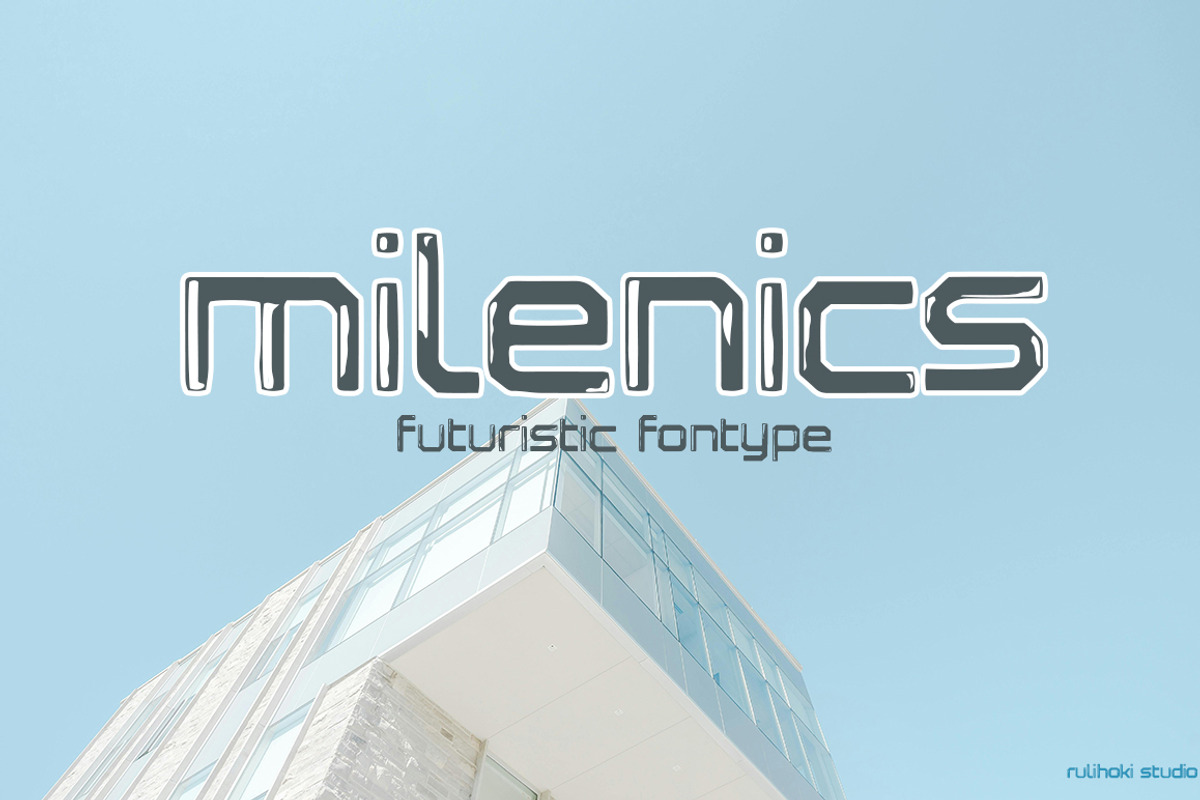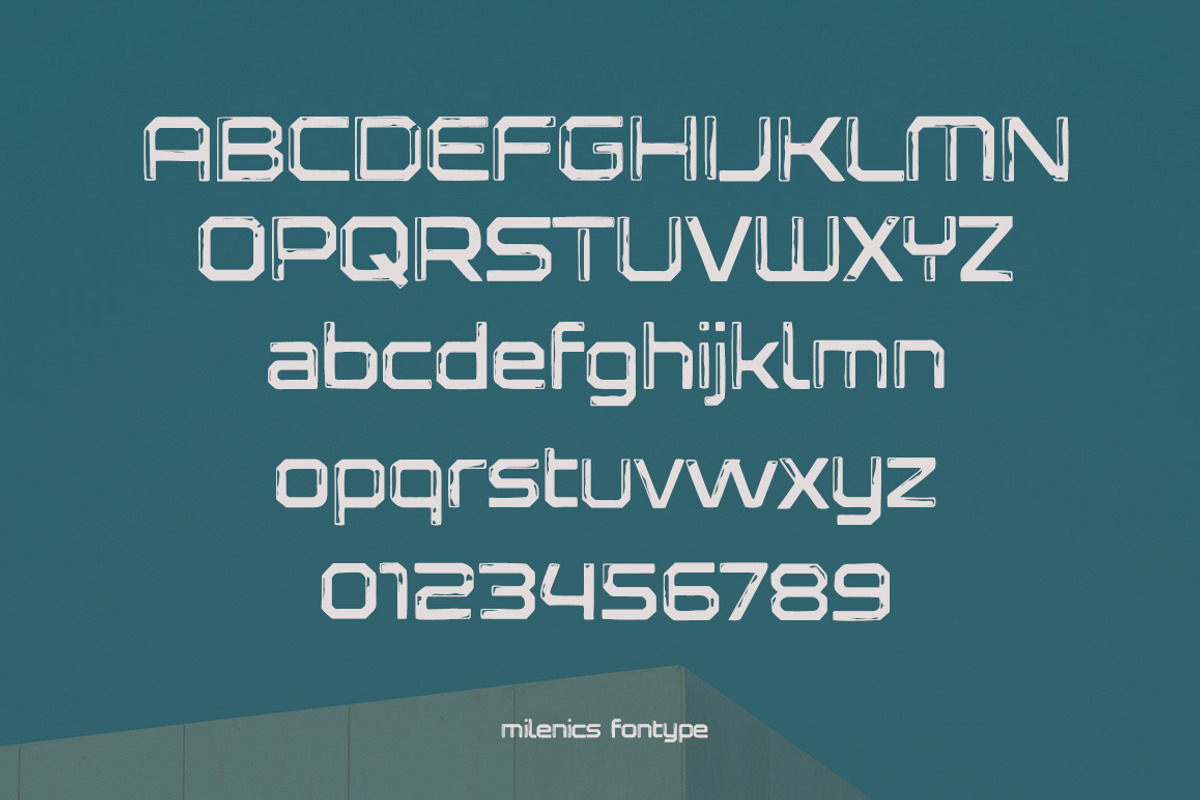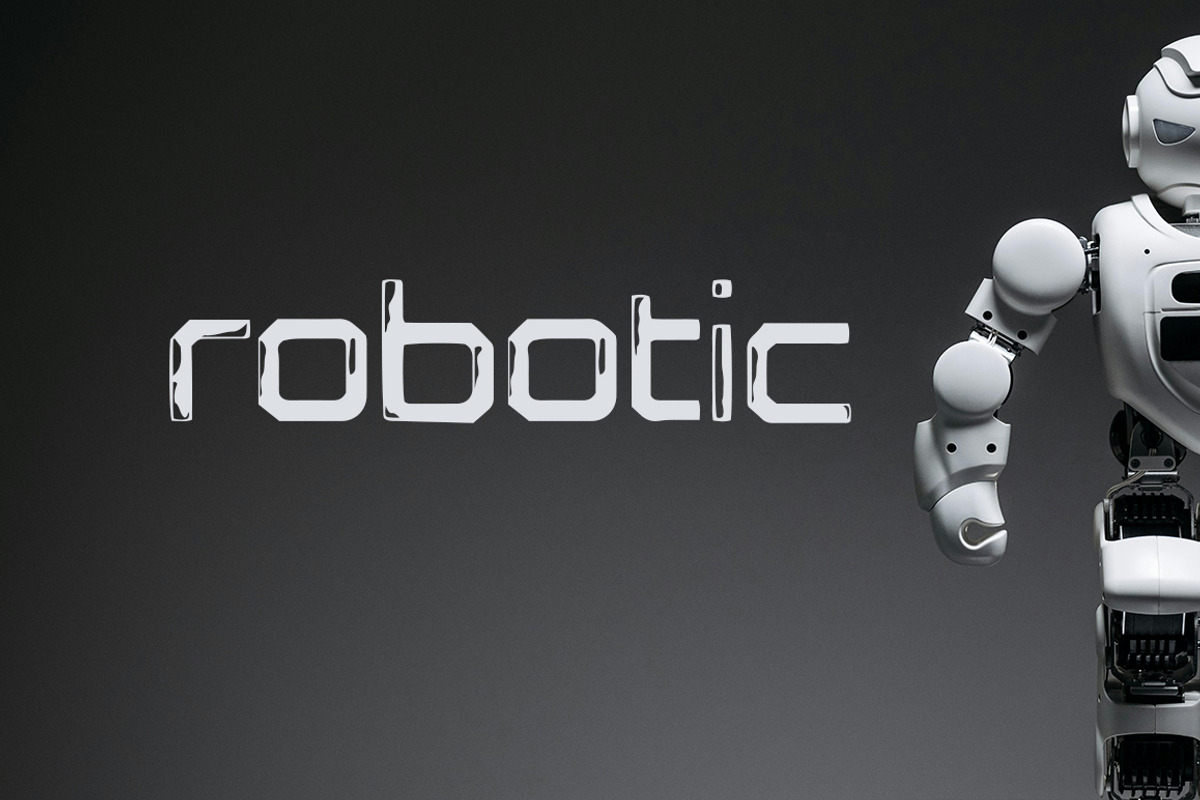
Milenics
Step into the future with Milenics Font a typeface that combines sleek geometry with a hi-tech atmosphere. Designed for clarity and impact, it fits perfectly in robotics, virtual reality, space technology, sports branding, and any project that demands a cutting-edge look.